Looking at typeface trends might seem super-geeky, but it’s a way to unlock the secret visual codes that reveal so much about today’s social attitudes and the things you care about. Typefaces don’t just spell out words, they’re also visual codes for ideas. You interact with typefaces almost constantly in your everyday life. They’re the interface between you and your day-to-day experiences that not only inform, but shape, influence and narrate the choices you make.
The typographic landscape around you changes constantly, even if you might not notice at the time. It happens just like tastes in fashion and music change. Sometimes typeface silhouettes mirror the clothes of the day, think of those fat-bottomed fonts in the 1970s when everybody was wearing flares and big platform boots. Typefaces also reflect the cultural attitudes of the moment—ransom note type embodied the rebellious voice of Punk and Stephen Coles of the Letterform Archive observes that the popularity of minimalist typefaces happens in cycles coupled with new technology and waves of modernisation.
Do you want to know what type trends reveal about social attitudes today?
The first trend you’ll explore is ink trap type. I was a judge for the D&AD Awards recently and I noticed that lots of the entries featured ink trap style typefaces. I wondered why, so this became the topic for the first issue.
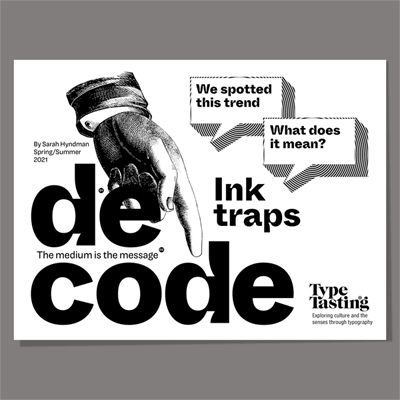
De-code
What stories are these curious-looking letters telling you?
In this experimental pdf zine you’ll decode the cultural attitudes that a trend reveals and explore how creates meaning.
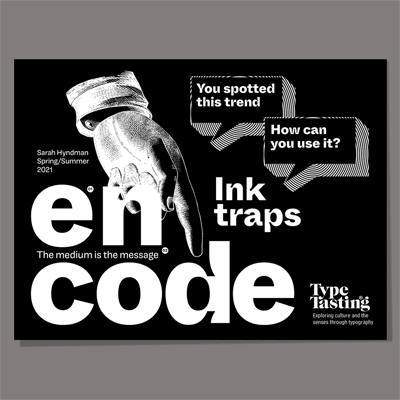
En-code
Discerning or gimmicky? How to use this typeface trend
I’ll do the legwork for you and curate a directory of fonts for a current type trend each month to inspire you. You’ll also discover when to (and not to) use them in this experimental pdf companion to De-code.